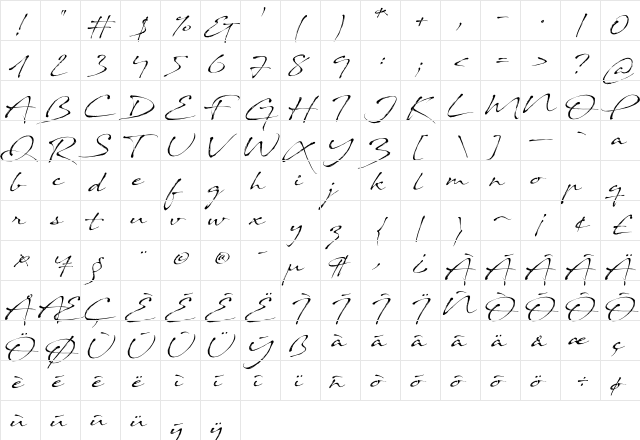
Sand Dunes Regular
| Foundry | Youssef Habchi |
| Designer | Youssef Habchi |
Design Context for Sand Dunes Typeface
Sand Dunes is a composed and adaptable typeface that performs quietly and consistently across a wide range of design contexts.